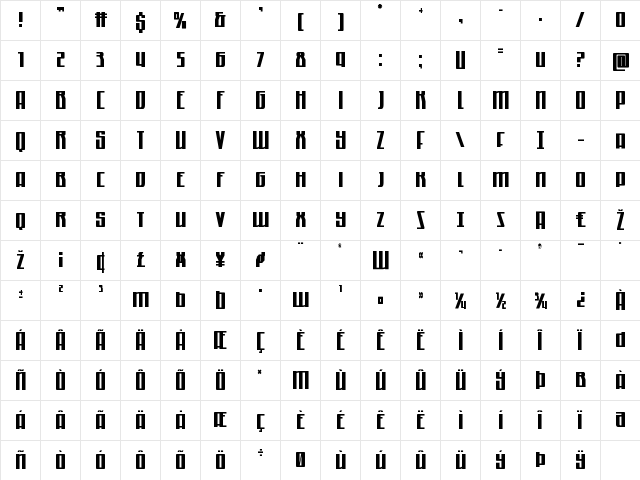
Quantum of Malice Condensed Condensed
Design Context for Quantum of Malice Condensed Typeface
Quantum of Malice Condensed offers clean, dependable letterforms without strong stylistic allegiance, making it a practical choice for designers who need flexibility. Its narrow stance lets it pack a punch even in space-constrained designs.